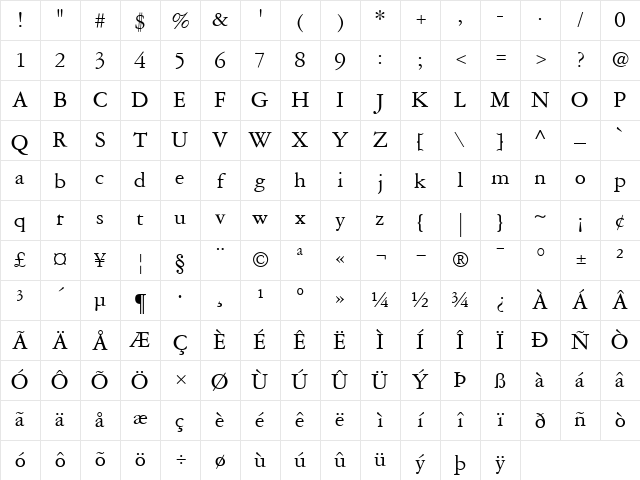
GaramondThree Roman Free Font
GaramondThree Roman
Design Context for GaramondThree
GaramondThree is a composed and adaptable typeface that performs quietly and consistently across a wide range of design contexts.